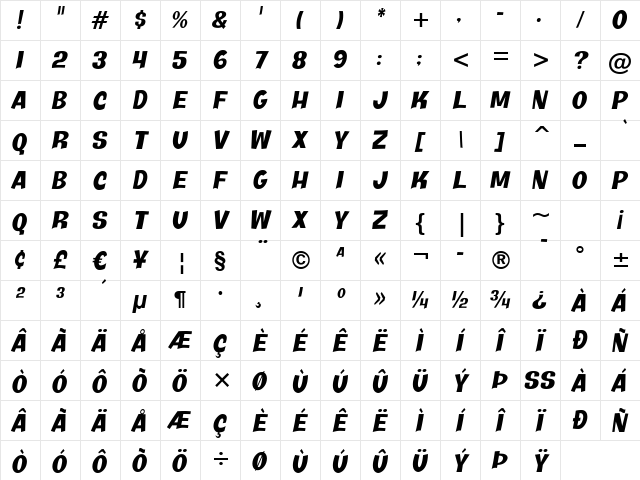
Java Kick BTN Oblique
Java Kick BTN Family
Java Kick BTN Oblique
Design Context for Java Kick BTN
Java Kick BTN is a composed and adaptable typeface that performs quietly and consistently across a wide range of design contexts. The slanted form adds forward momentum and visual energy.
Pro Tip: Use Java Kick BTN for emphasis, pull quotes, and subheadings where its slanted energy can add rhythm to the layout.